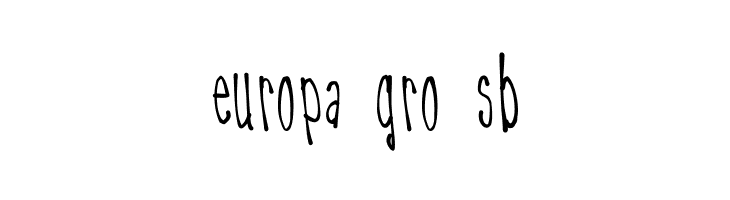
A playful, hand-drawn style font with rounded, irregular strokes.
A playful, hand-drawn font with tall, narrow characters and a whimsical style.
A playful and quirky font with irregular, whimsical letterforms.